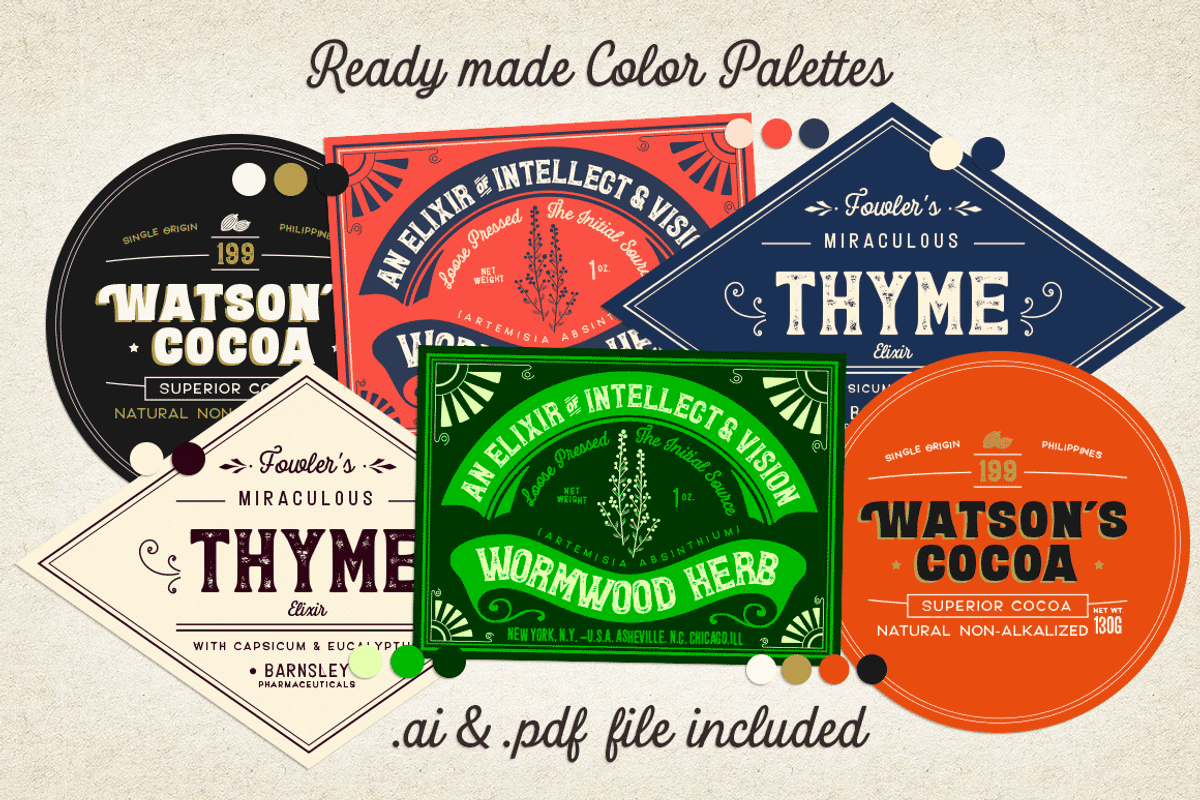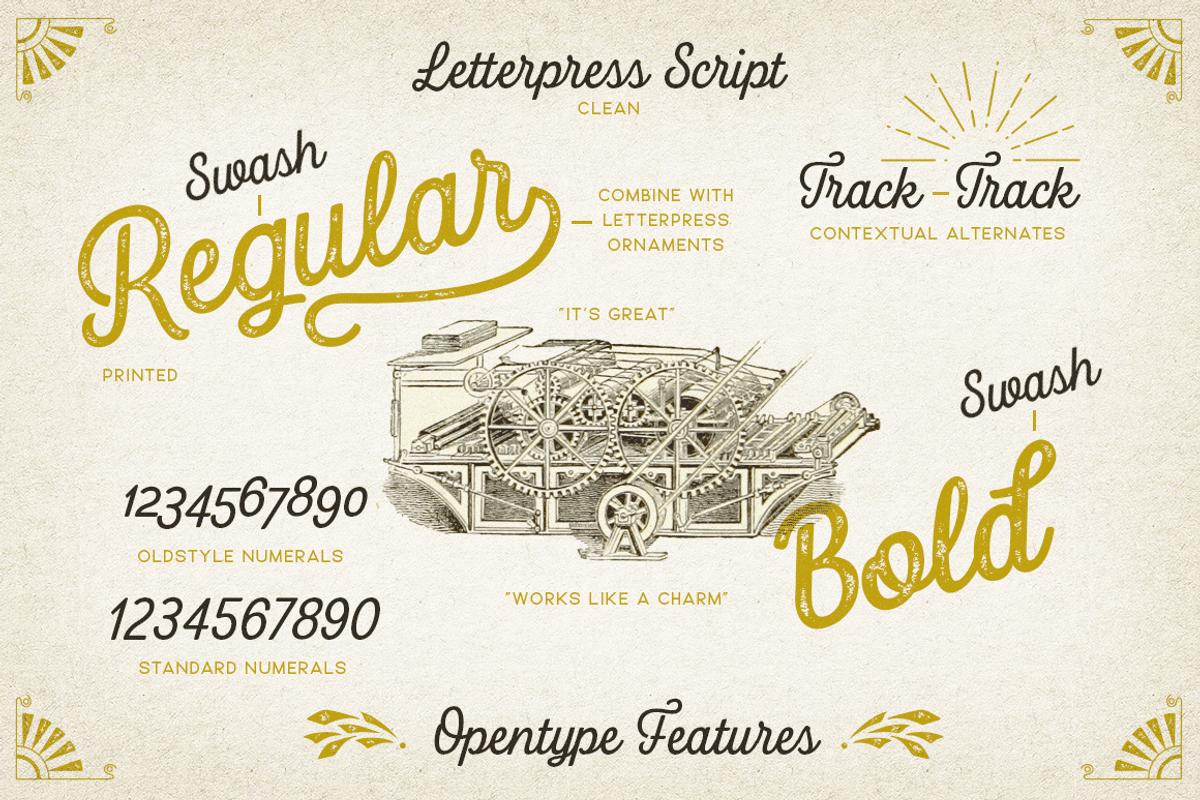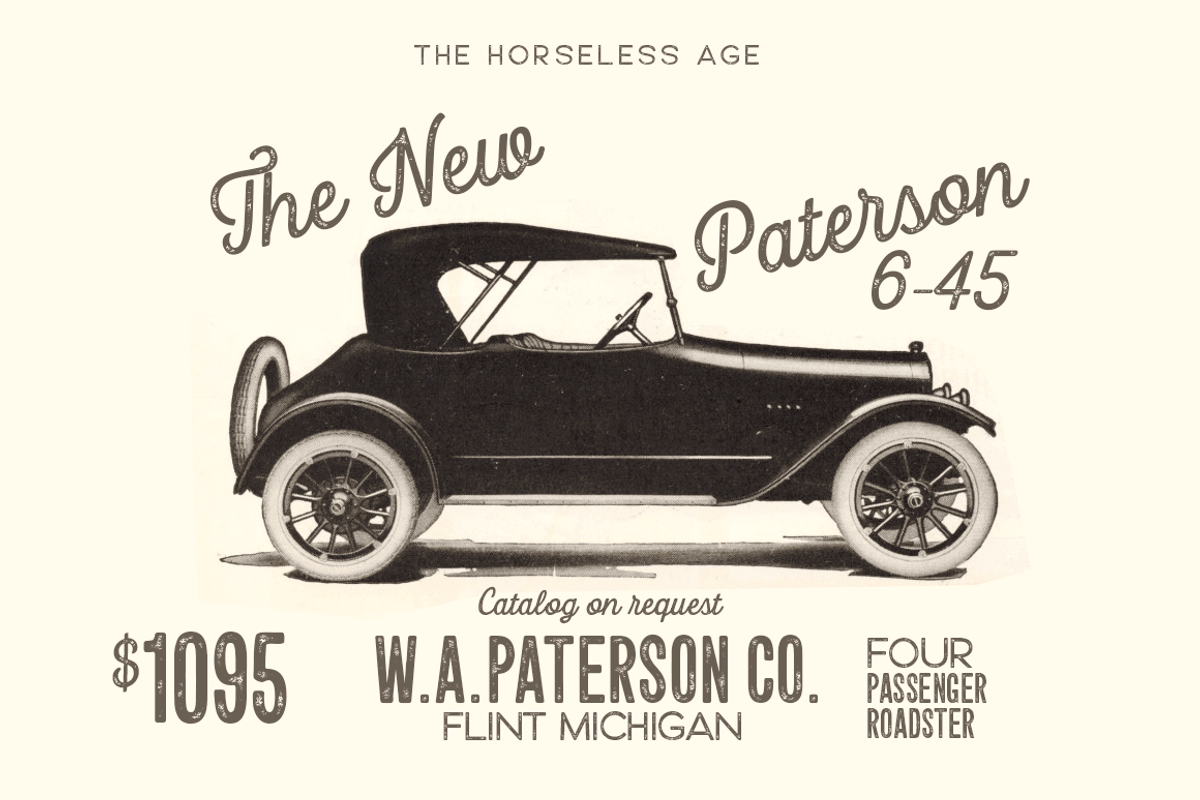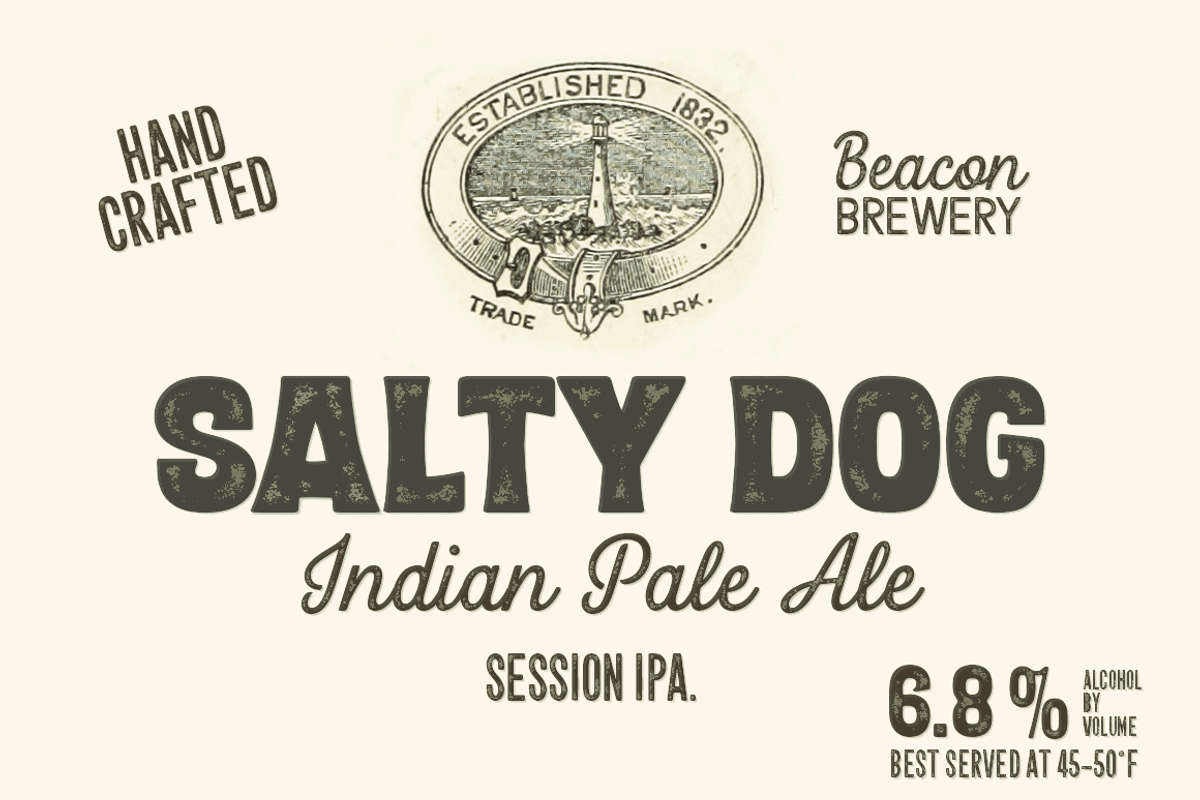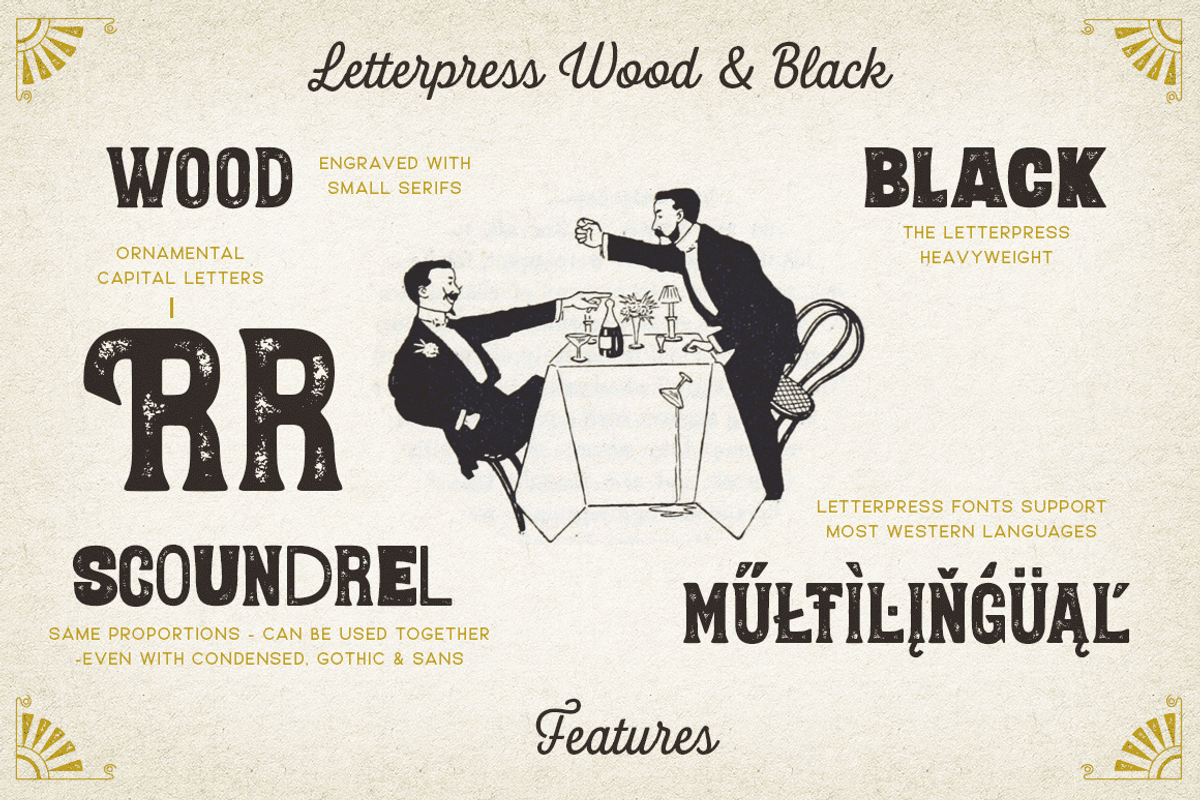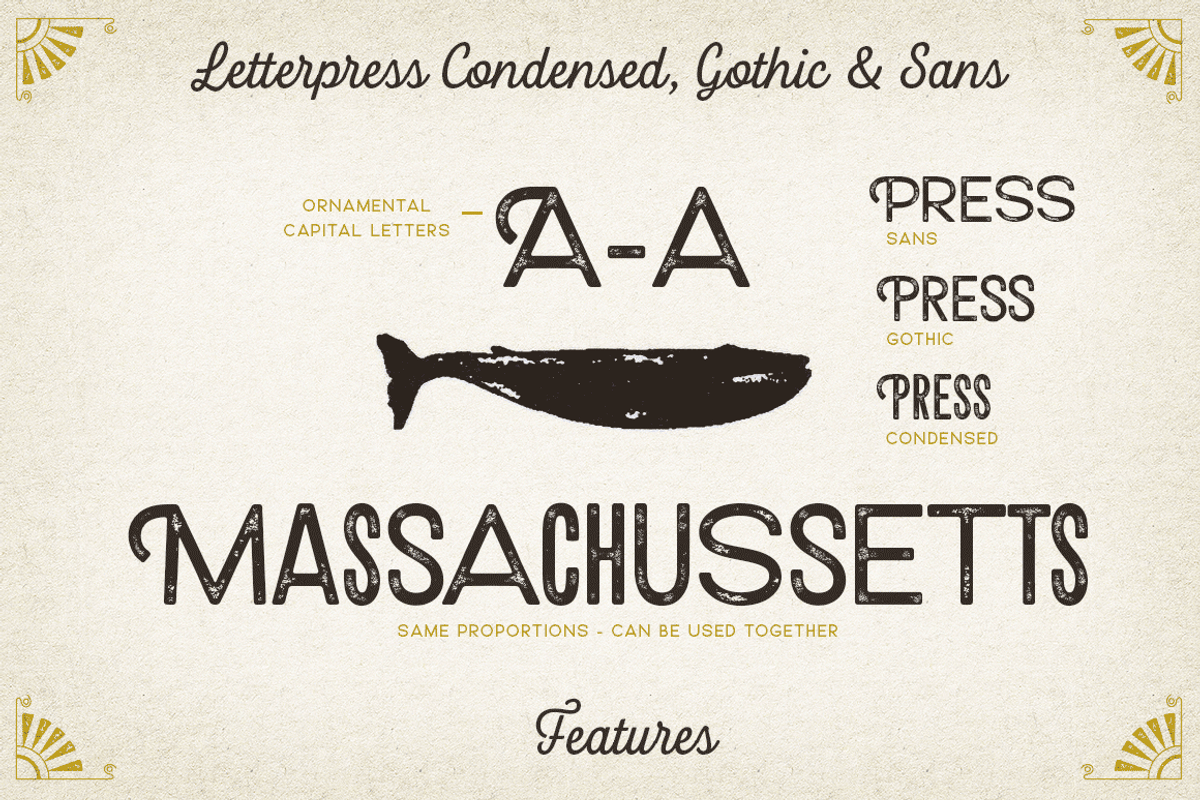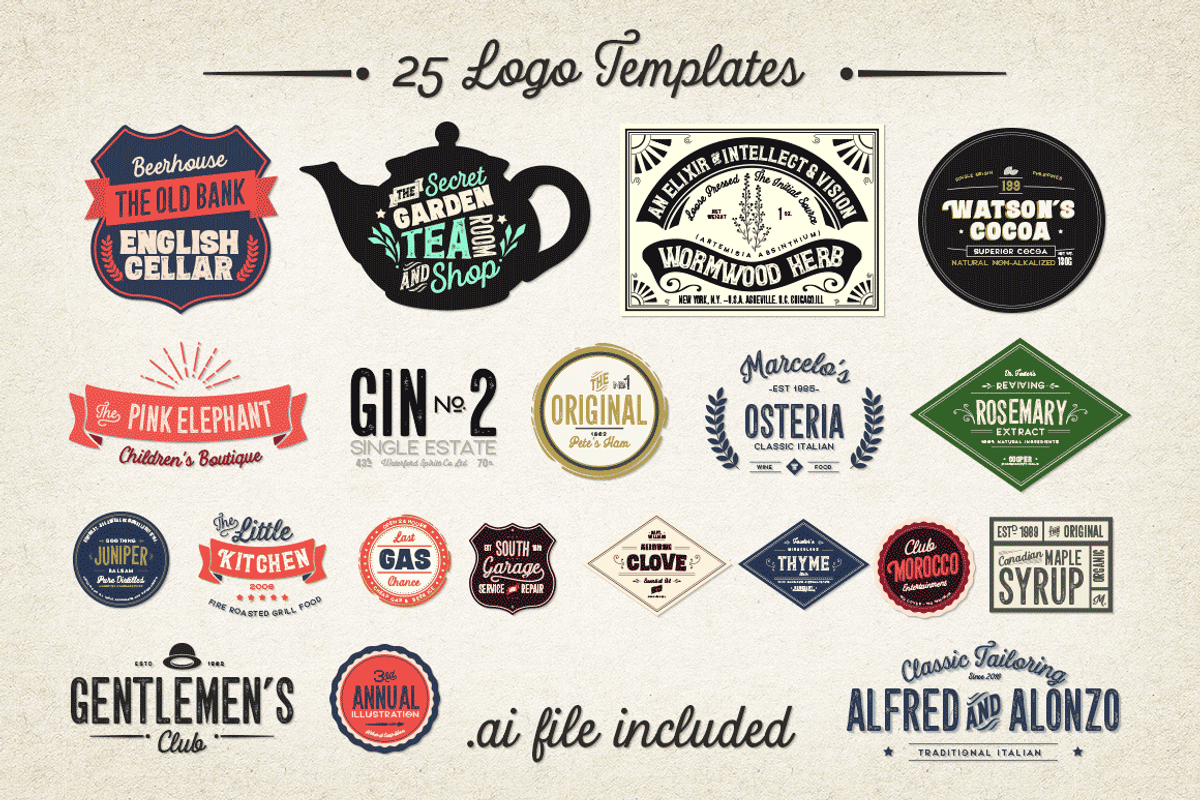
Letterpress Studio Fonts -20% SALE by Fenotype is a font selected for branding, posters, packaging, typography.
- Letterpress Studio -Crafted Vintage Goods Letterpress Studio includes following 7 fonts - a textured and clean version of each Ornaments Cat
- Here’s a short introduction to the fonts: Letterpress Script -A connected script with lot’s of OpenType features Letterpress Script Bold -Bo
Why Letterpress Studio Fonts -20% SALE is worth a look
Letterpress Studio Fonts -20% SALE by Fenotype fits naturally into Branding, posters, packaging, typography.